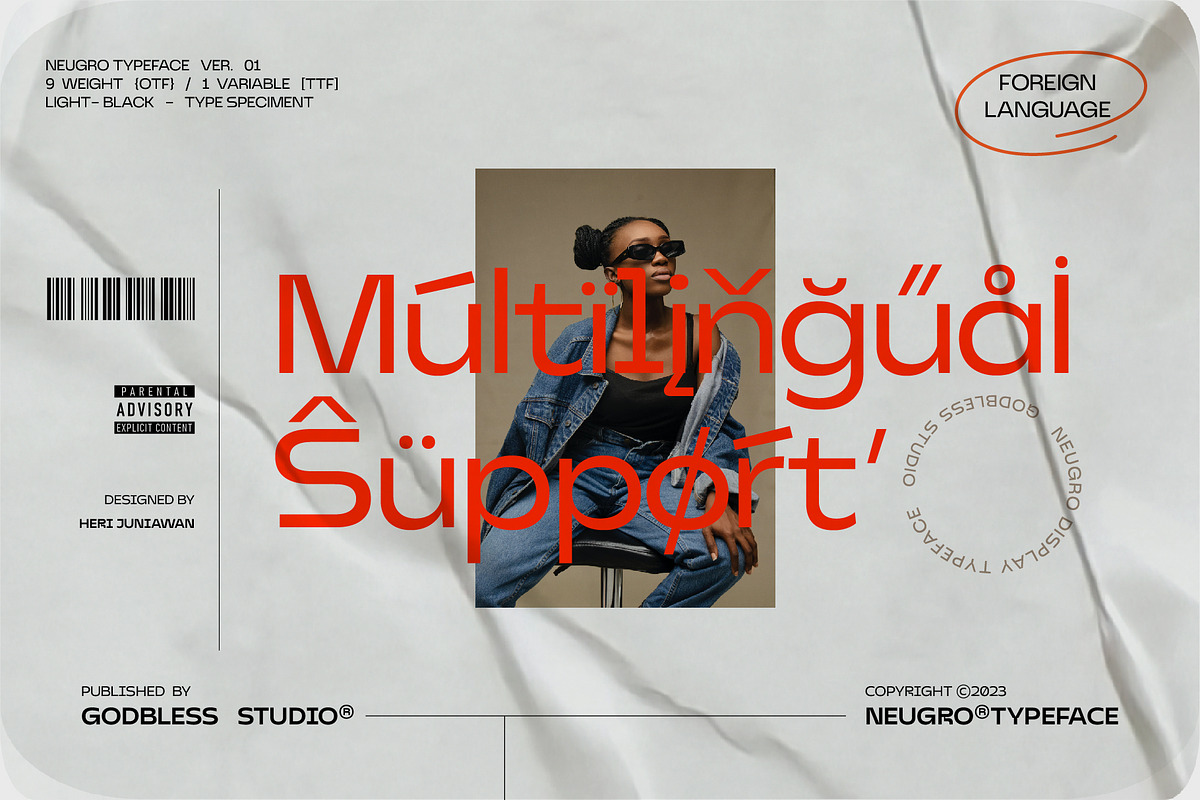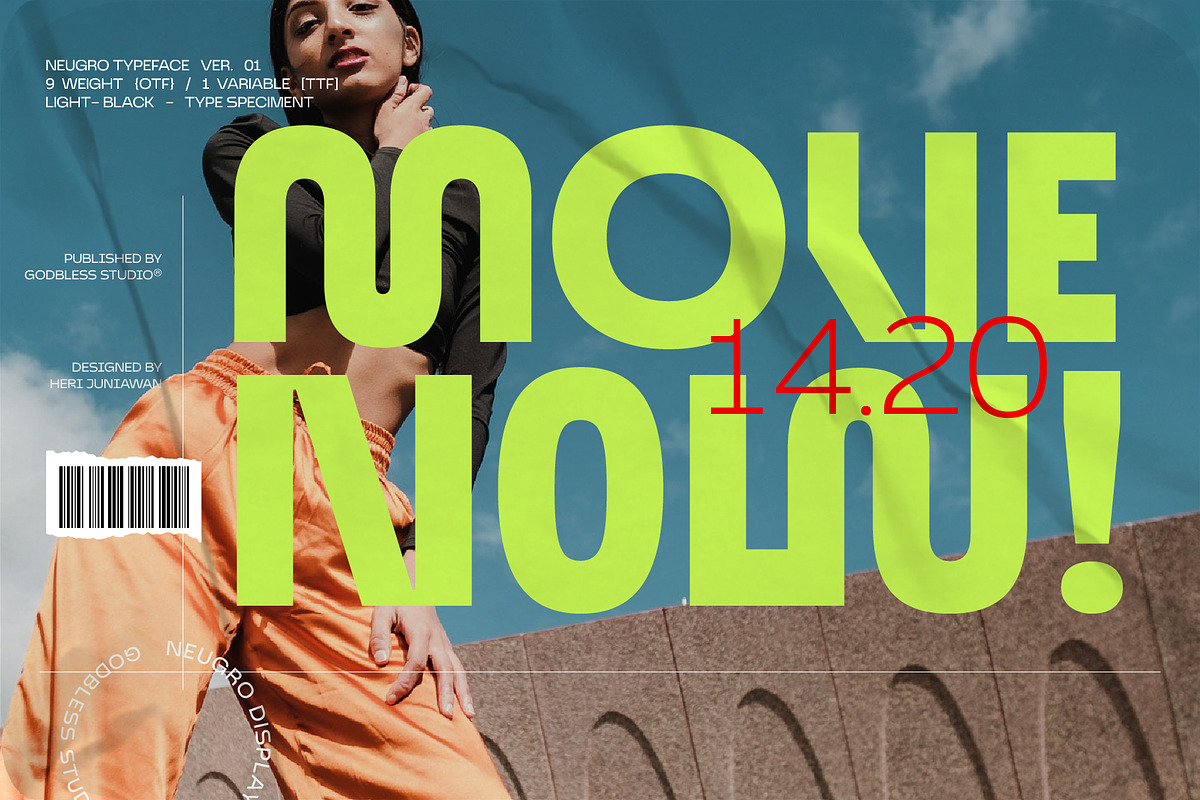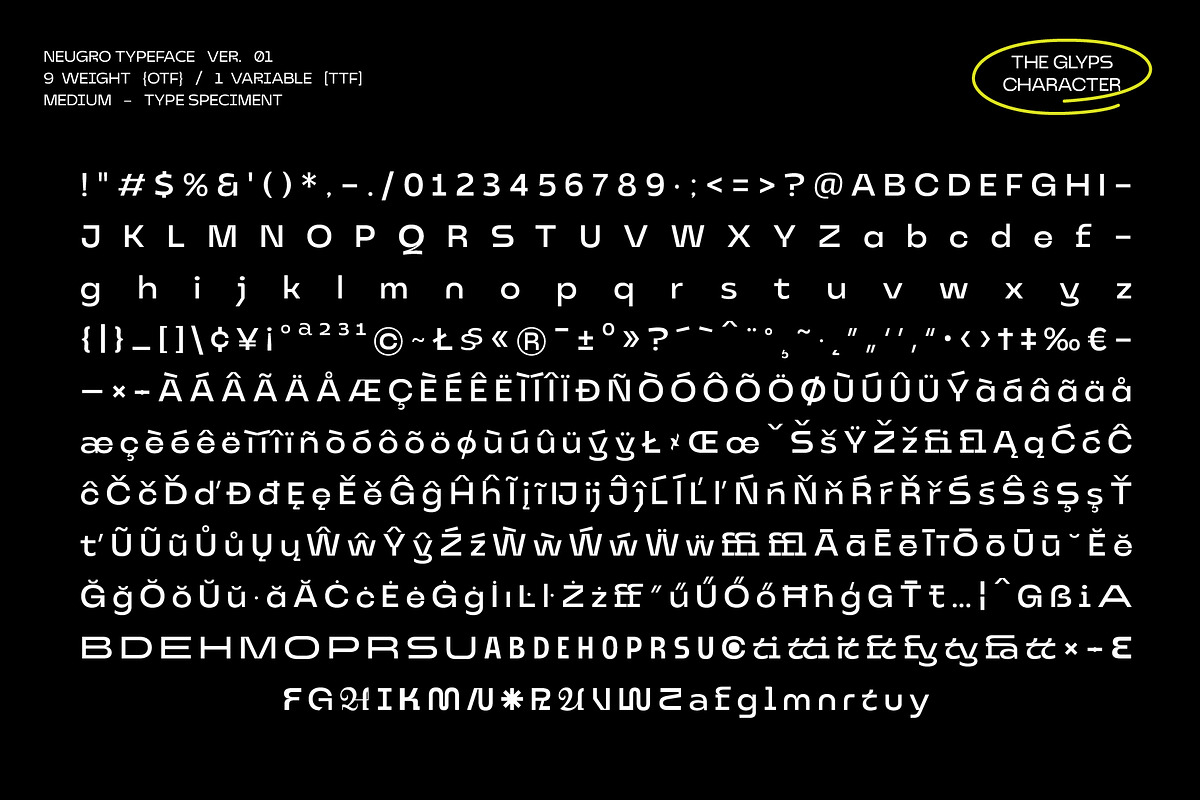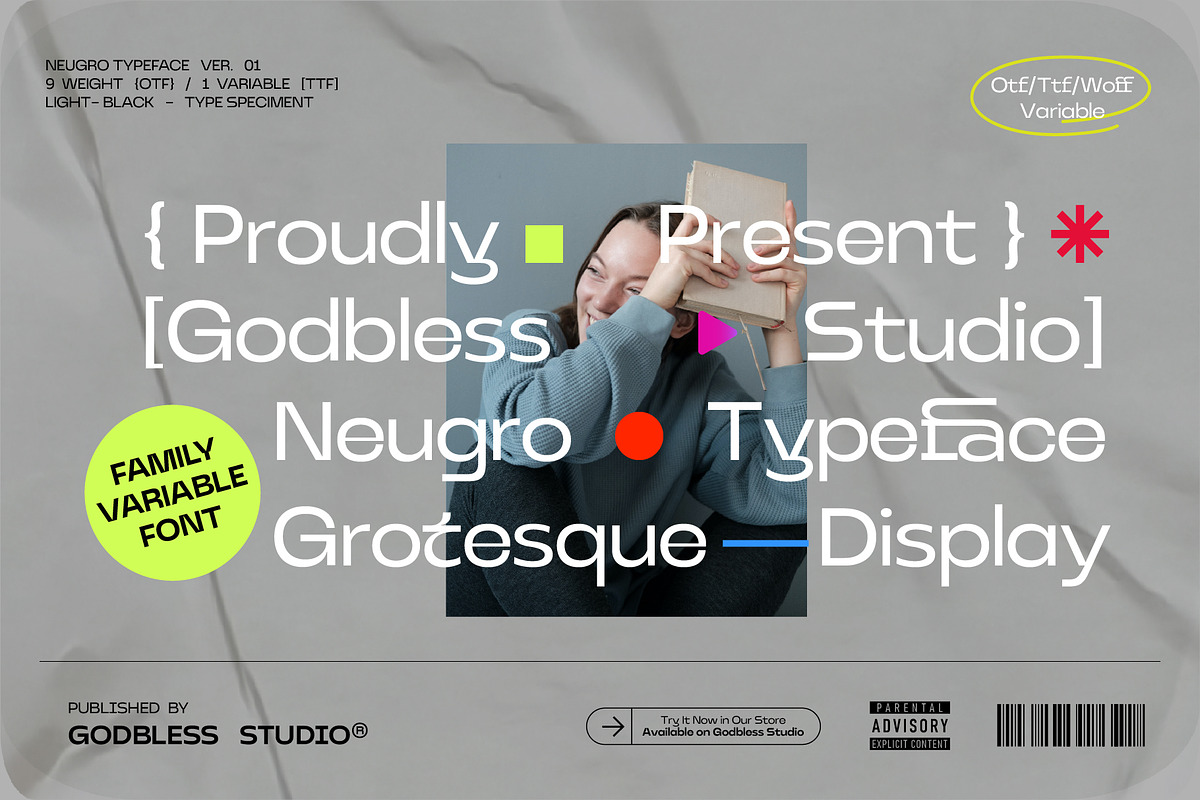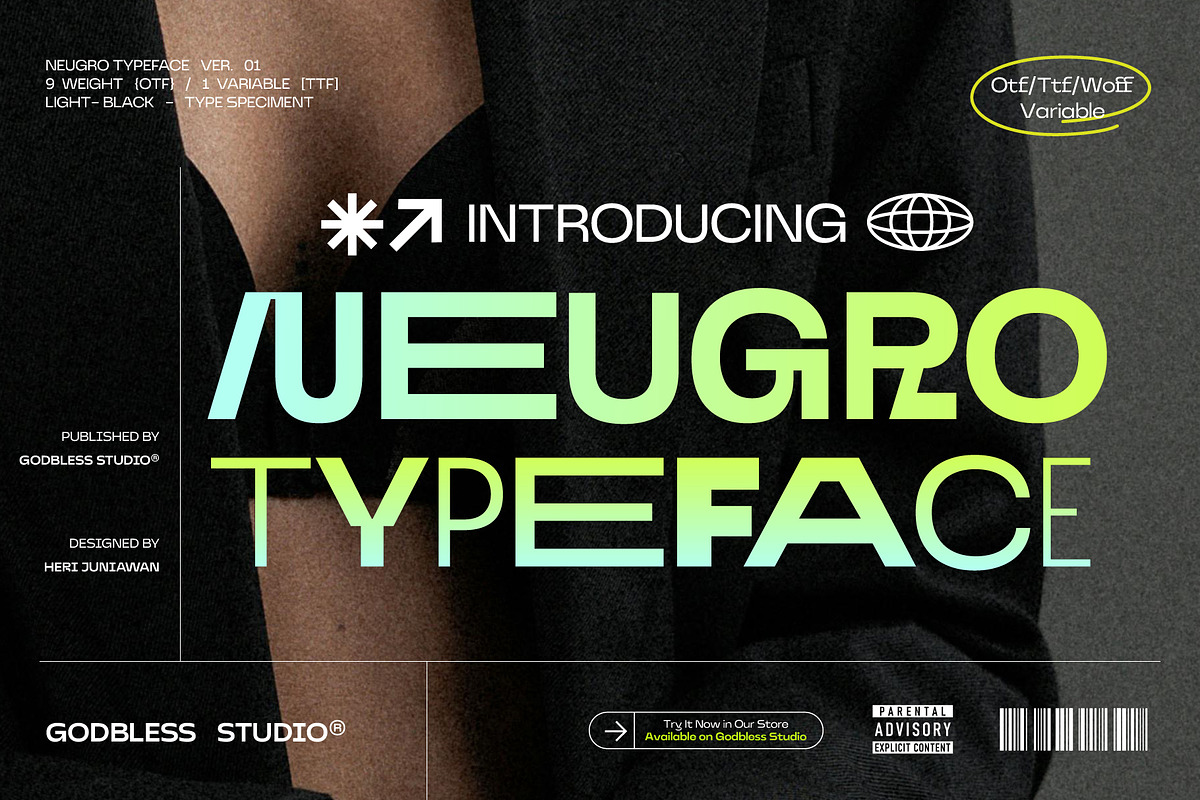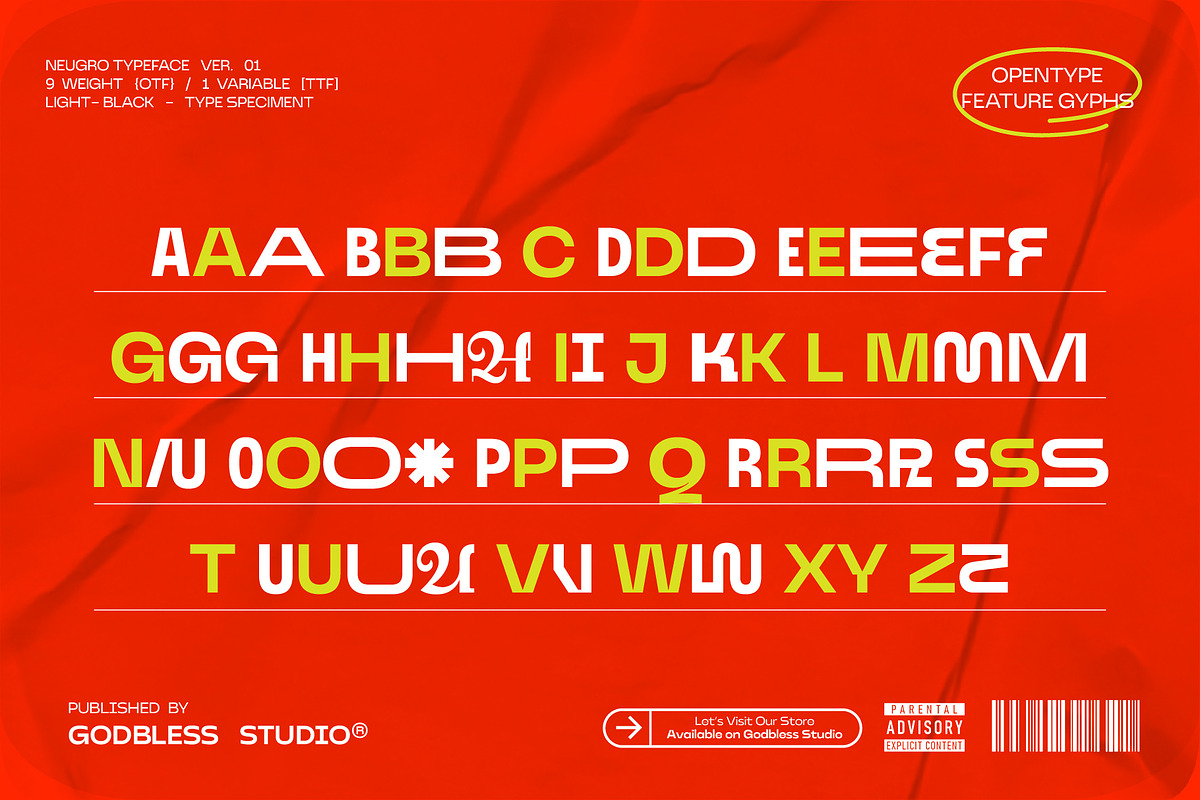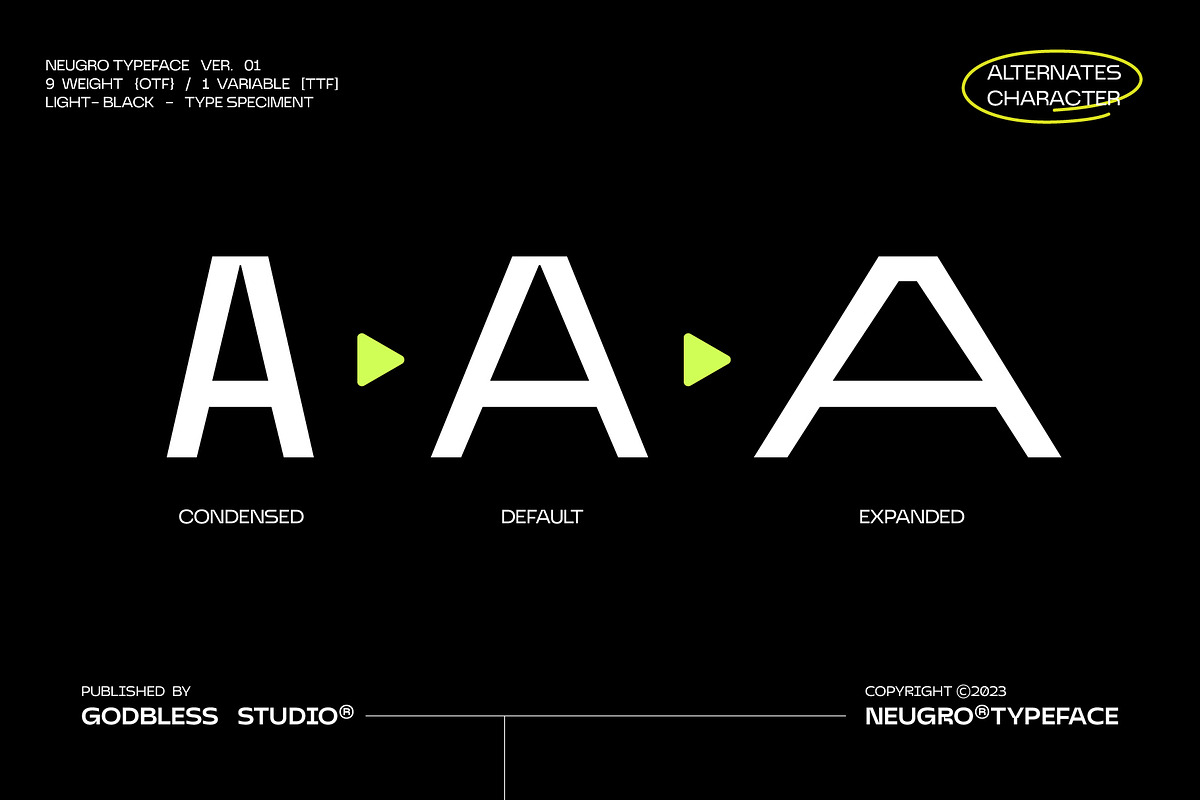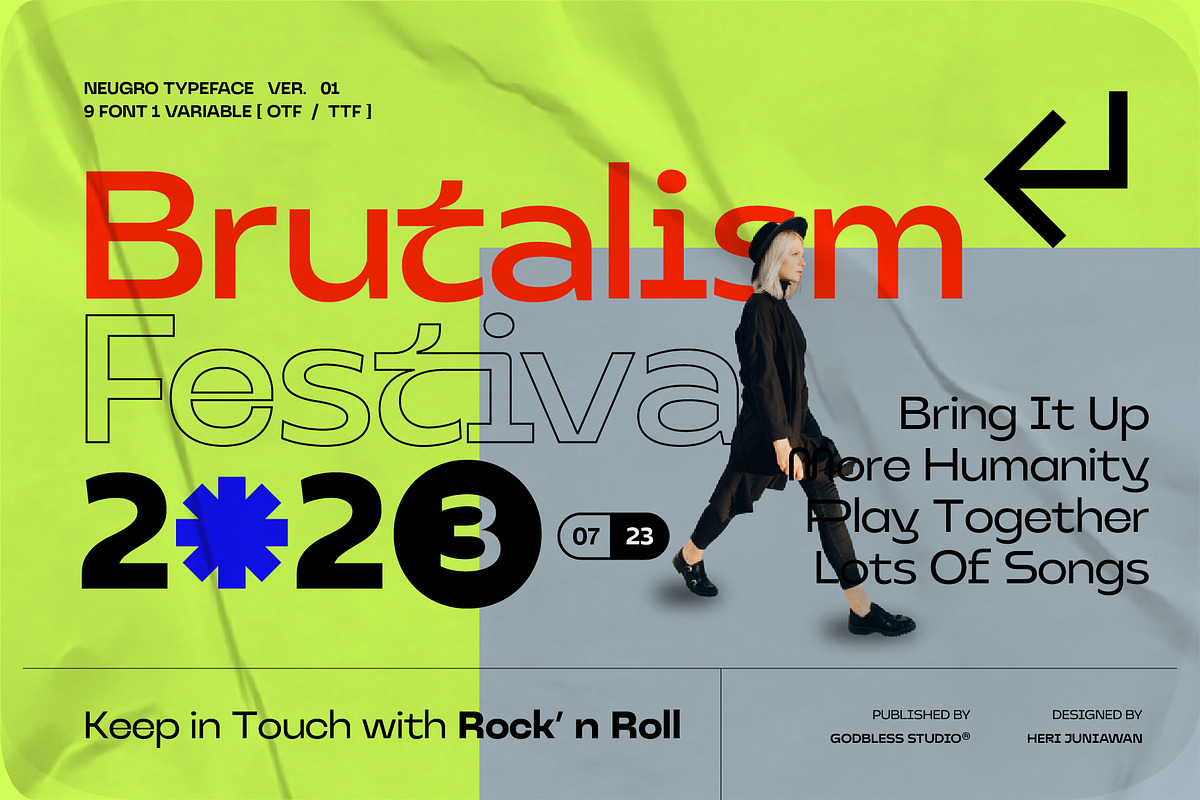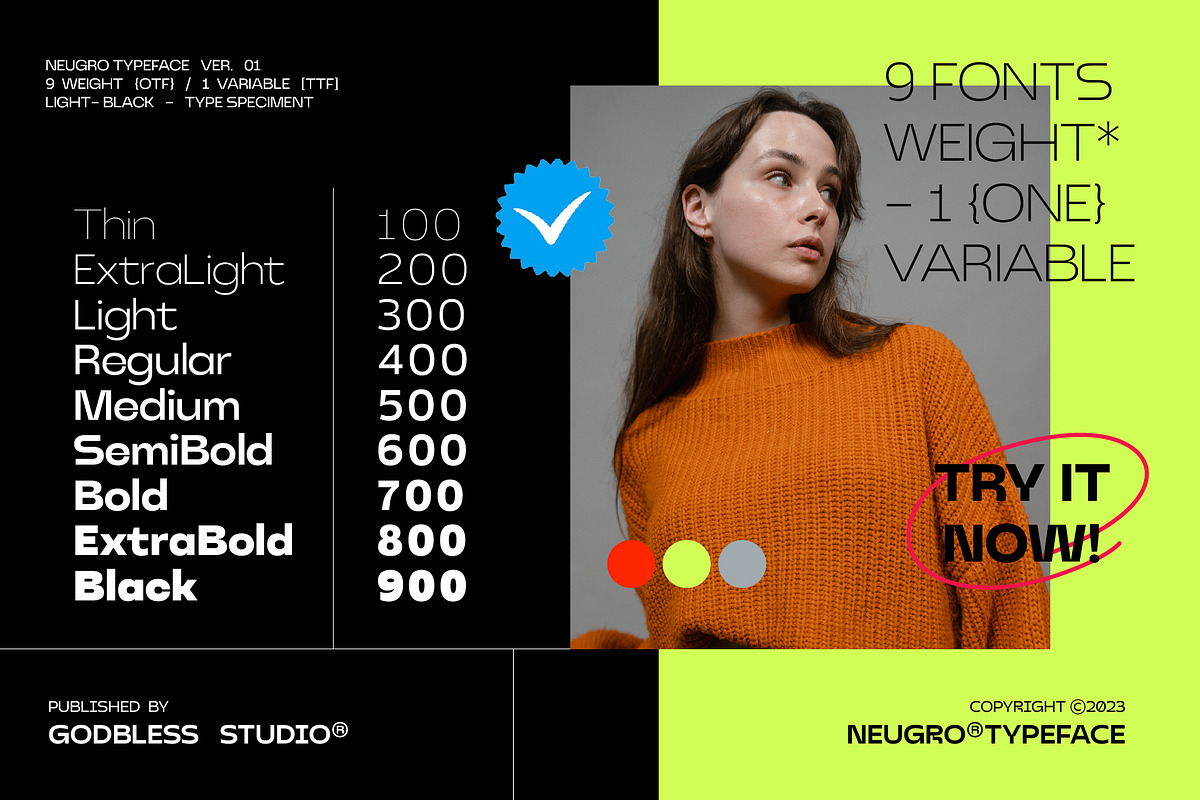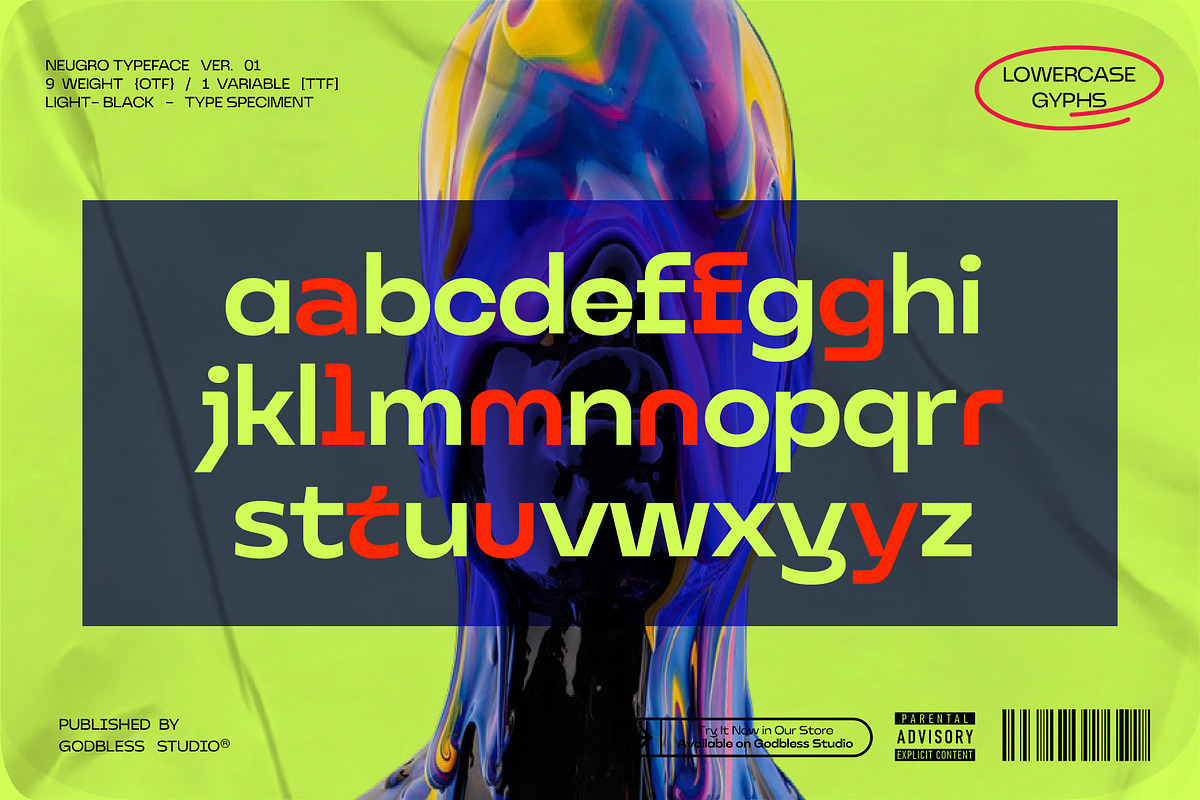
Inspired by something experimental and modern but still has a strong and elegant characteristic. Neugro Typeface is a experimental sans serif font well-suited for display use; its orthogonal terminals and short ascenders and descenders make it ideal for block of texts. By mixing different weights, you can have a wide range of design options—short text, isolated words, logos, titles, branding design, posters, etc.
The Neugro family comes in 9 weights—from a thin and condensed thin to an expanded and Black. Its character set supports over 200 different languages. Equipped with various additional unique and modern alternative characters, it gives you a very strong composition of identity and personality. This font really deserves to be on your desktop*